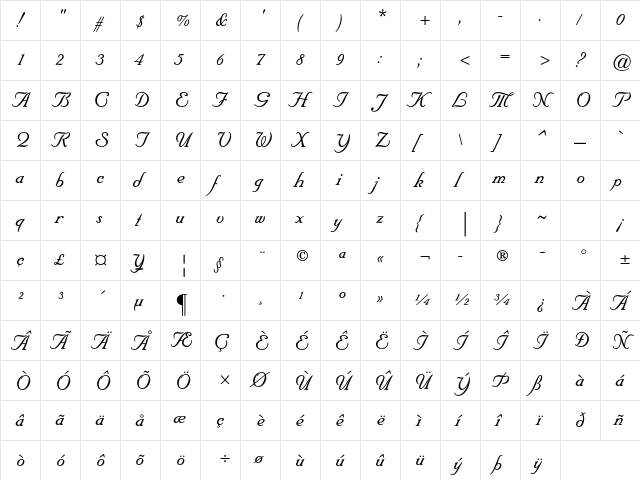
Floridian Script Std Regular
Design Context for Floridian Script Std Typeface
Floridian Script Std brings a calligraphic fluidity to the page — its connecting strokes and expressive curves give it an unmistakably human quality.
Font Pairing: Combine Floridian Script Std with a simple geometric sans for maximum contrast — the tension between flowing curves and clean structure is a classic typographic pairing.
Pro Tip: Use Floridian Script Std for short runs of text — names, titles, or taglines. Extended body copy in script faces tires the eye quickly.